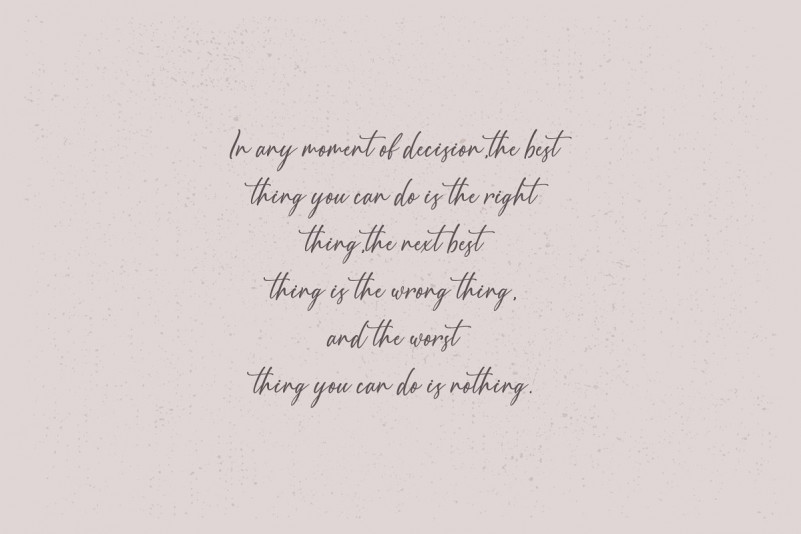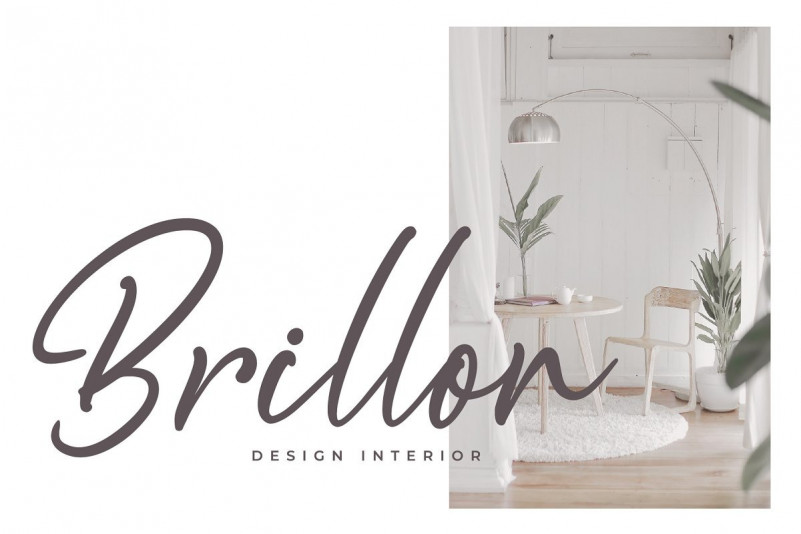
Scotland Calligraphy Font
Introducing a new fresh handmade calligraphy font. Unique handmade calligraphic Inspiration Hand Drawn Font is modern display font with alternative flourish lowercases and alternative uppercases. Introducing Scotland Font. It’s special calligraphy font. Scotland Calligraphy is perfect for branding, wedding invites and cards, and maybe for red wine label. this font comes with full set of uppercase and lowercase letters, multilingual symbols, numerals, punctuation.